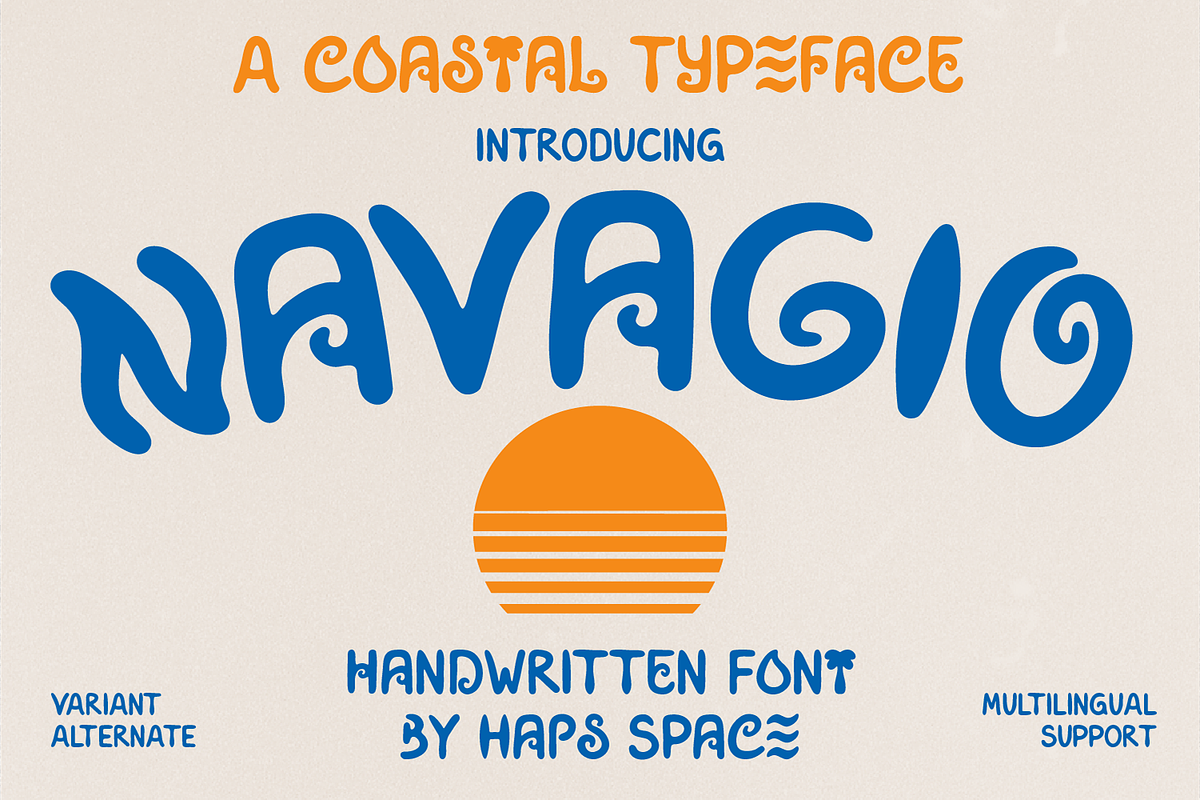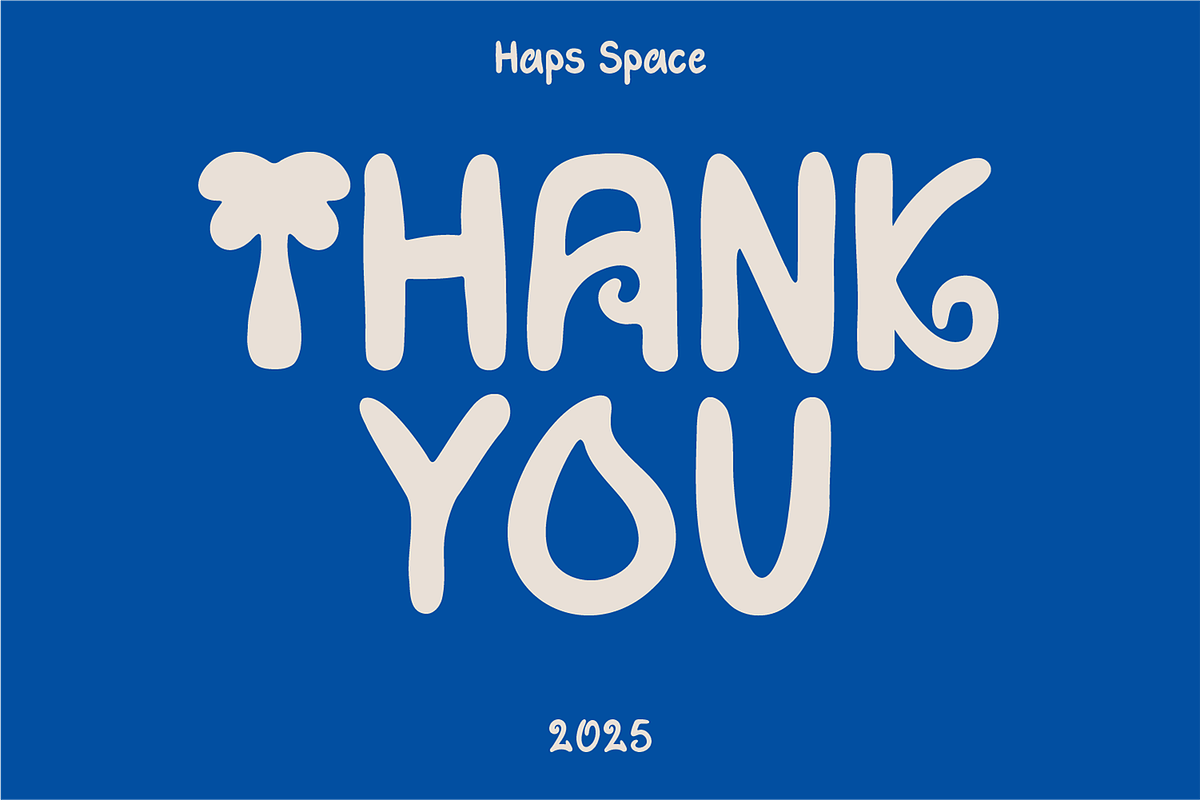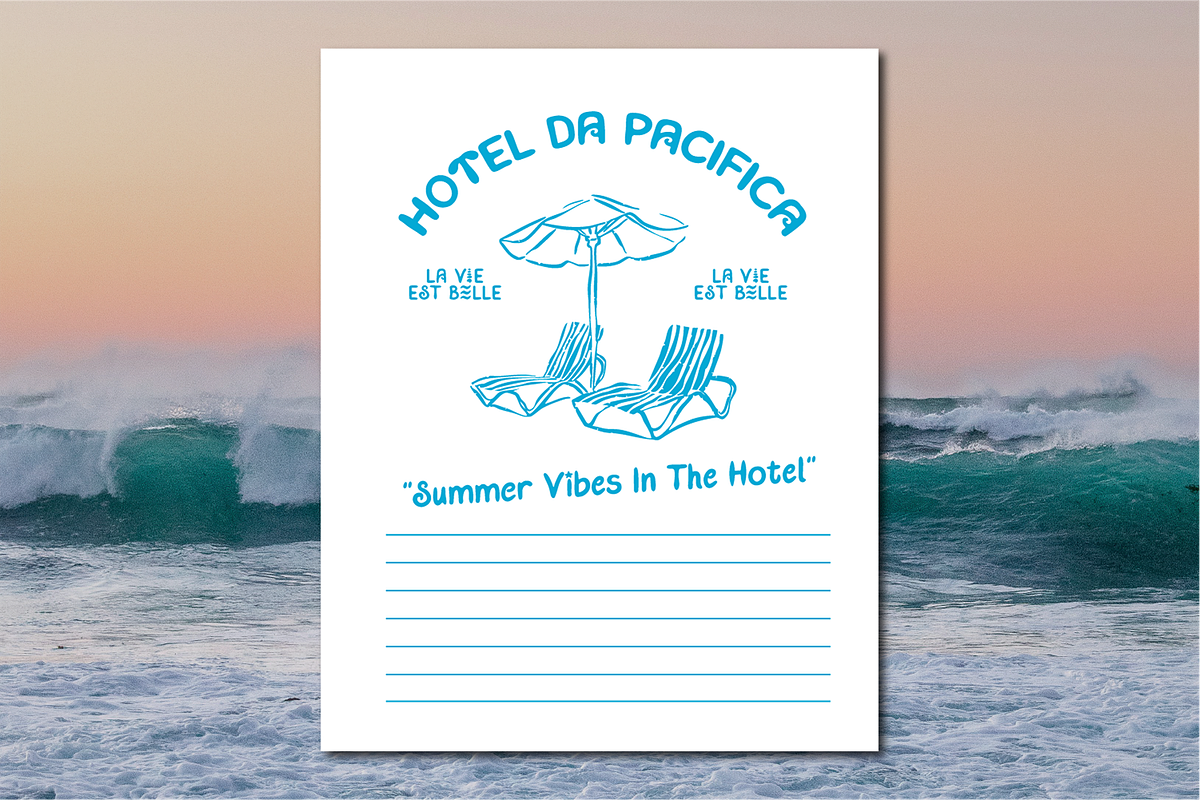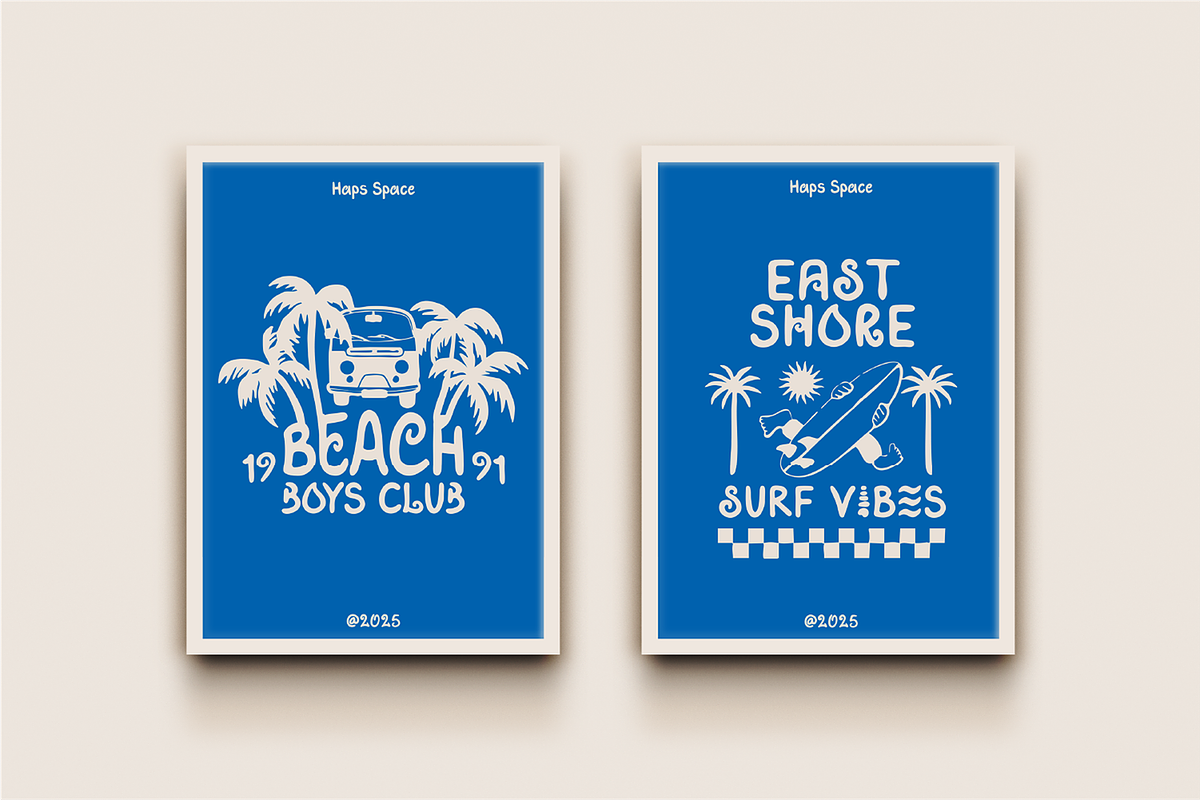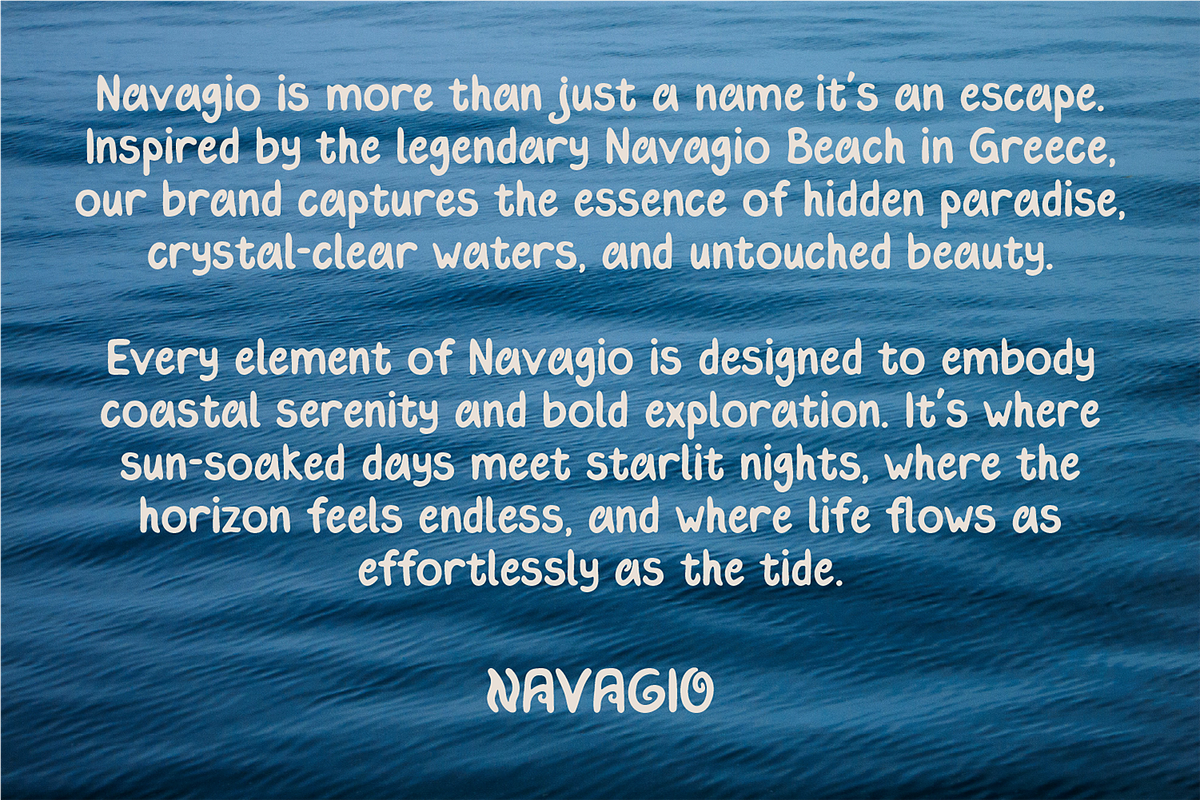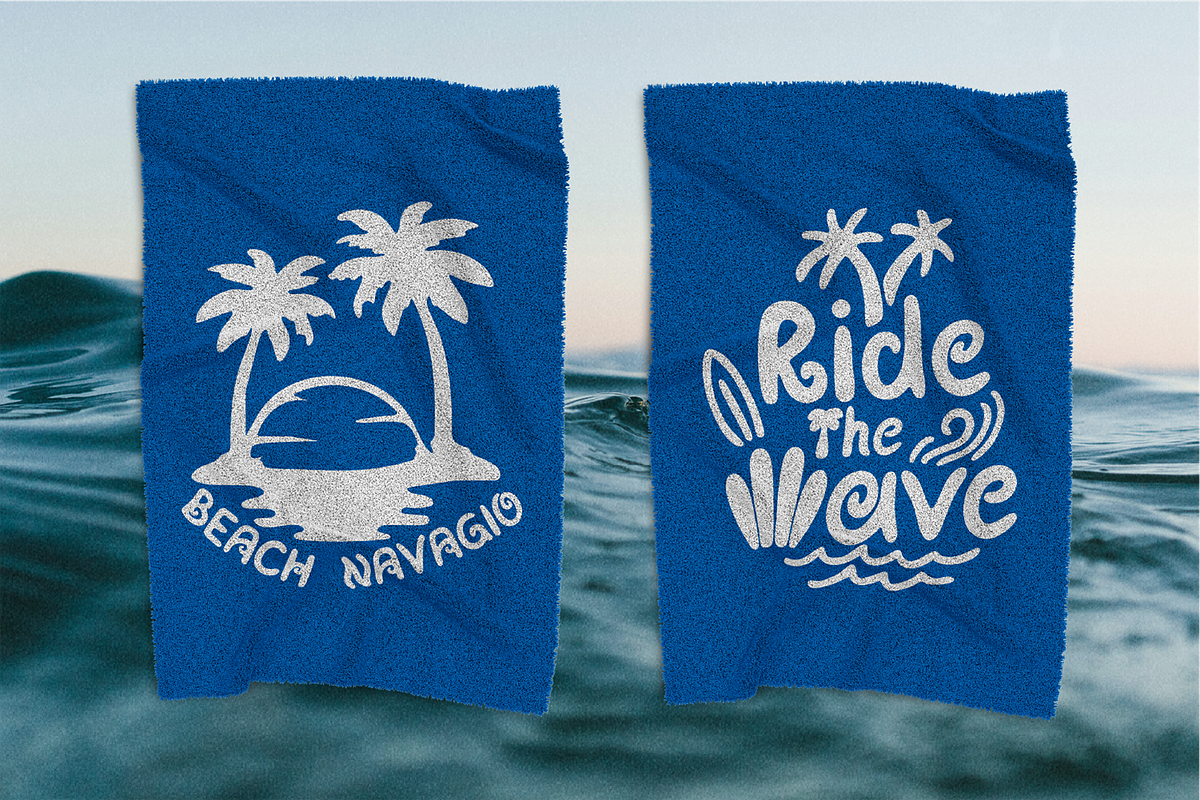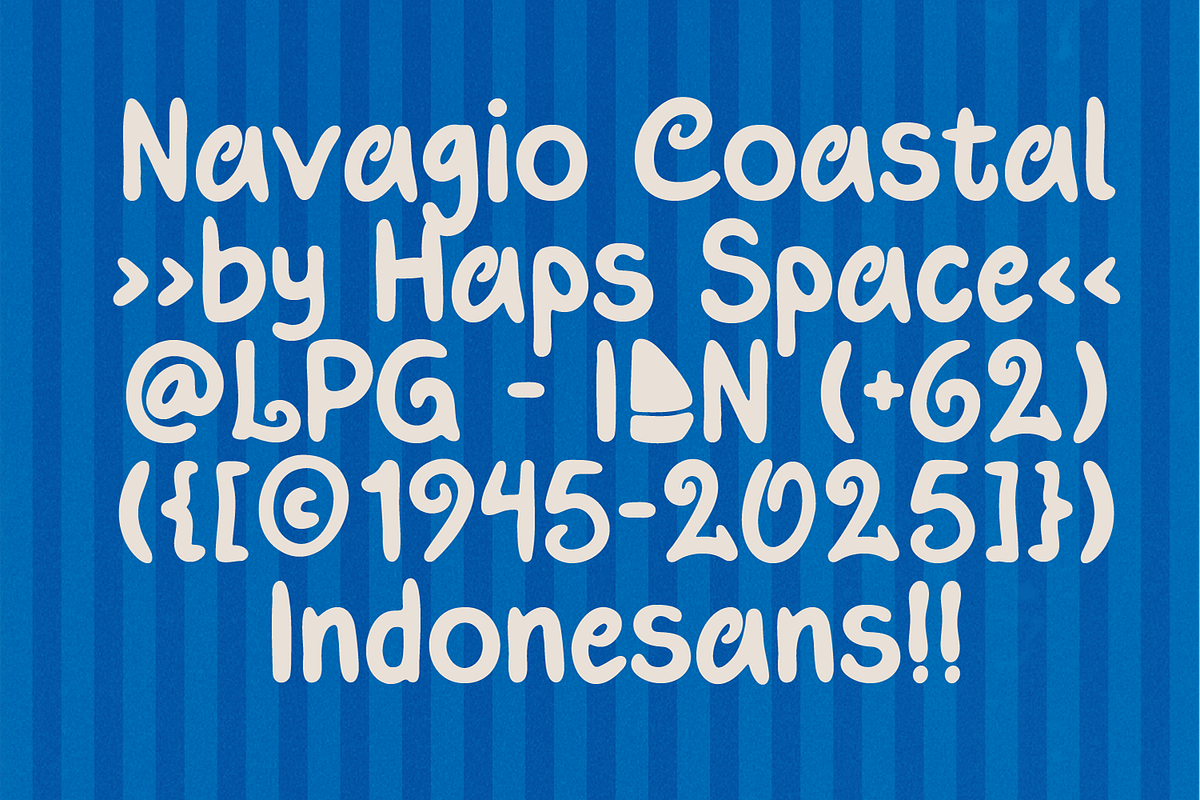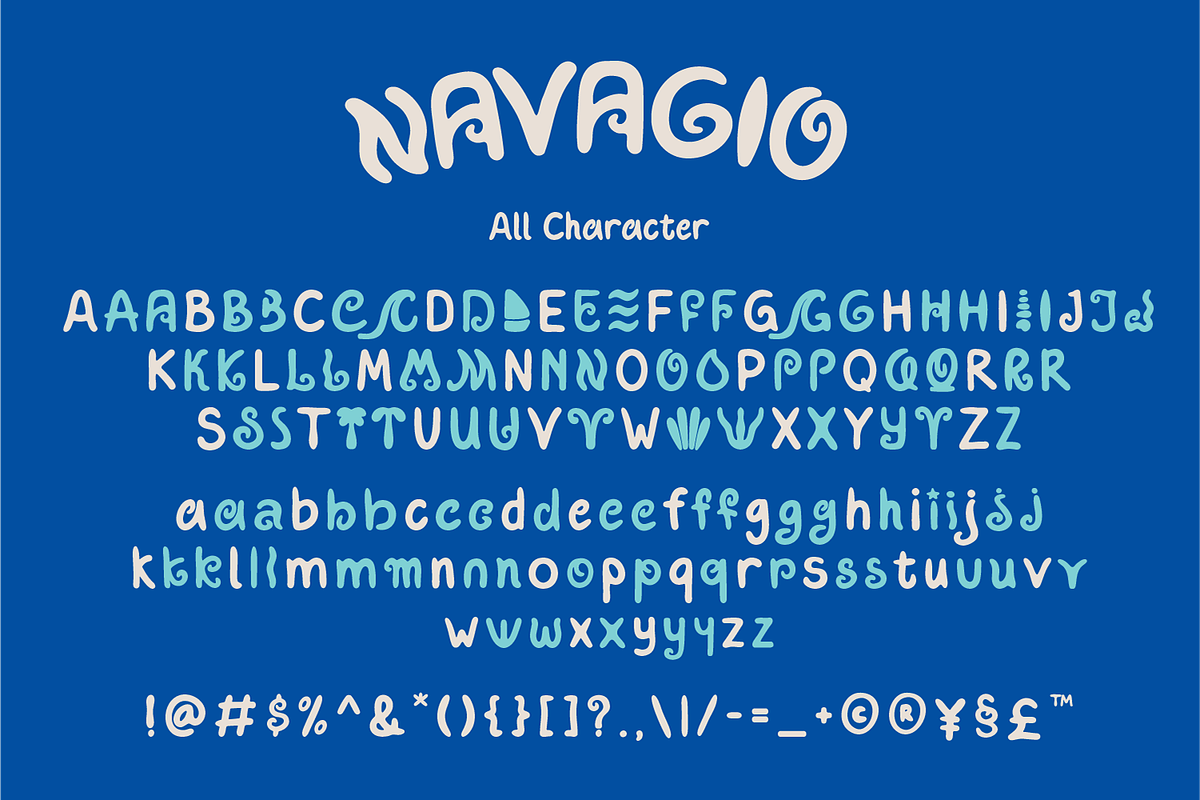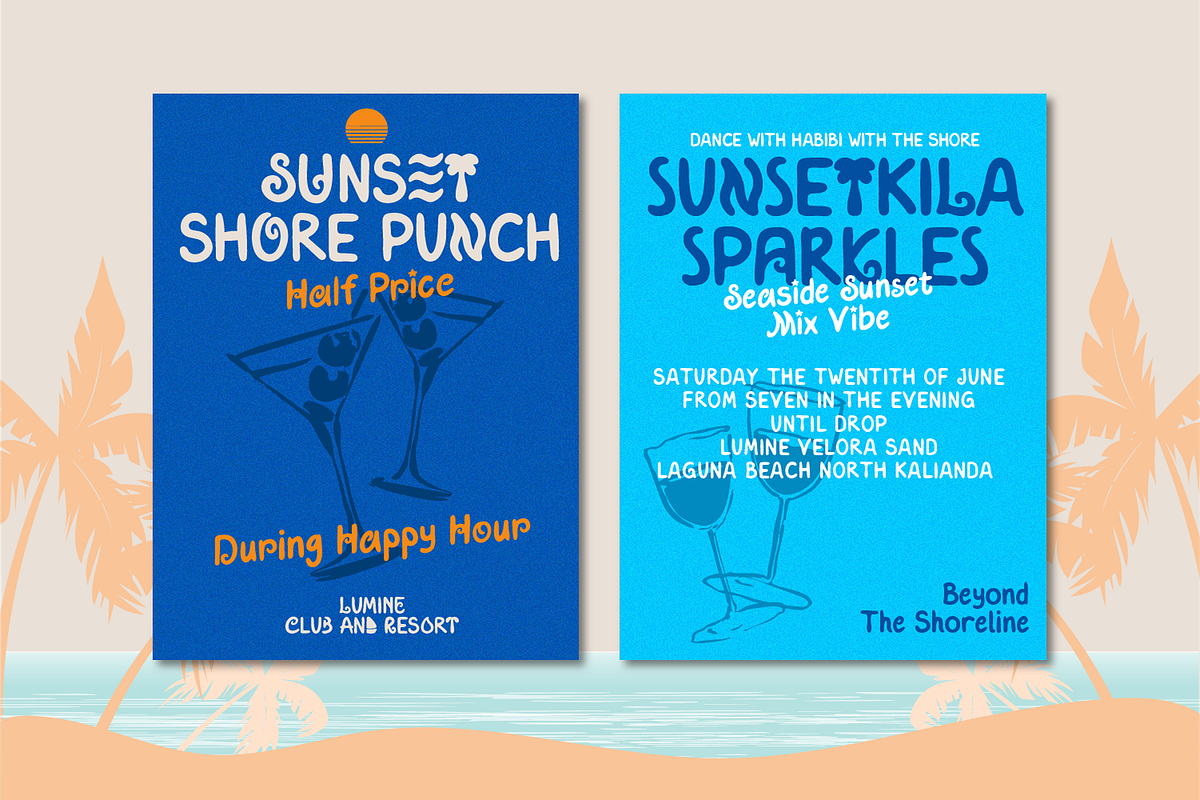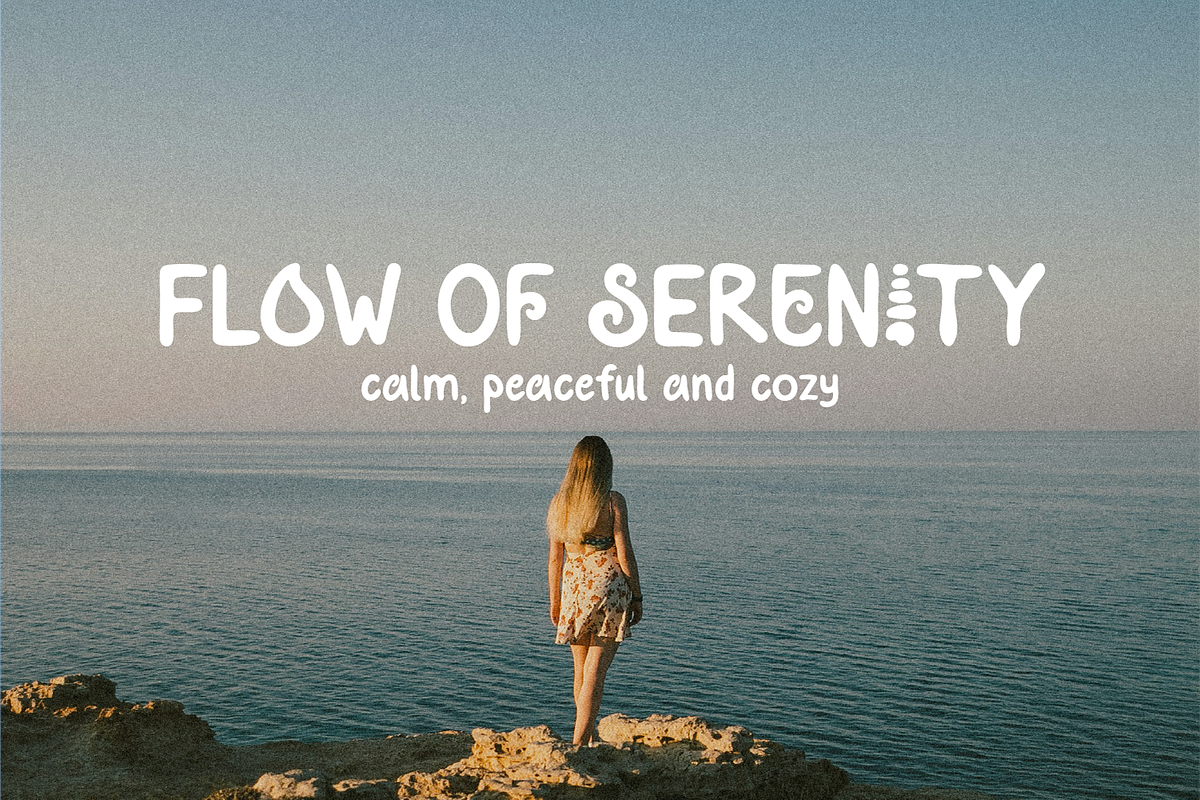
Navagio Coastal Handwritten Display
Introducing Navagio, a playful handwritten display font inspired by the relaxing charm of coastal life. With its bold, wavy strokes and organic curves, Navagio brings a breezy and carefree vibe to your typography projects. Perfect for summer branding, beach-themed packaging, travel posters, or any design that needs a fun and friendly touch.
This font includes alternates and stylistic variations, plus multilingual support, giving you flexibility and creativity in every design. Whether used for logos, social media, or editorial layouts, Navagio makes every word feel warm, bold, and effortlessly coastal.
- Unique Letterforms